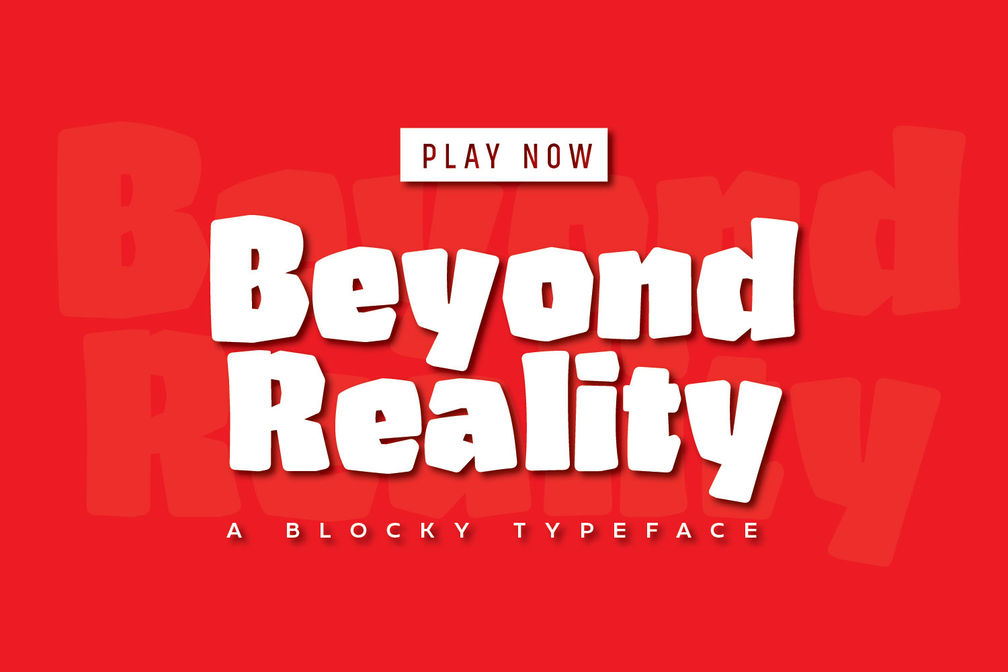
- Beyond Reality
“Beyond Reality” is a bold, blocky typeface that nails the perfect balance between edgy and precise. It’s a go-to for game titles, headers, posters, or any project needing a powerful, eye-catching font. With thick, uniform lines, it delivers top-notch readability and visual impact. While it doesn’t obsess over precision, it keeps a balanced look that’s both cohesive and versatile. Its unique, playful vibe adds a fun twist, making any design pop. “Beyond Reality” is super easy to use, complete with all the letters, numbers, and punctuation you need. All in all, it’s the ultimate pick for making bold visual statements in both digital and print media.